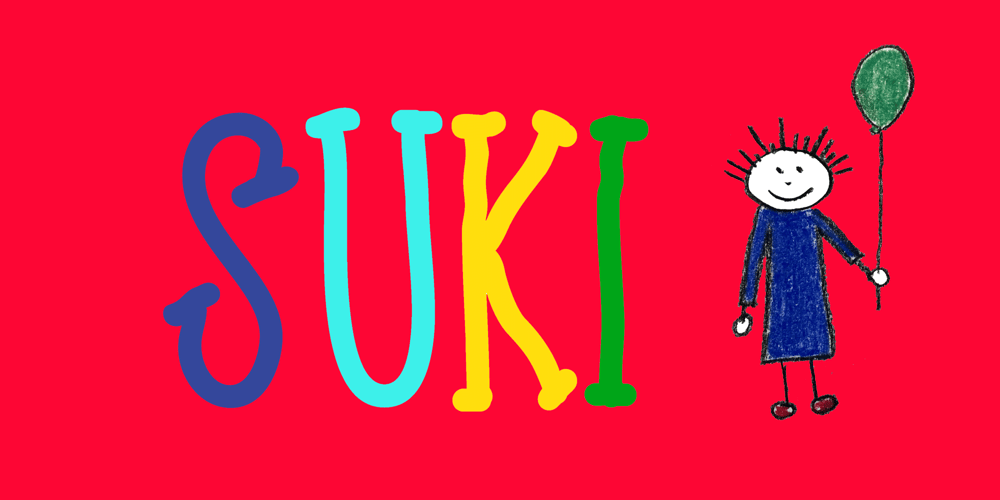
Suki Font Family was designed by Joachim Frank and published by Joachim Frank. Suki contains 1 styles and family package options. Sookie is a hand designed font for posters, invitations, headlines, lettering of nursery hooks, signs, young, fresh and round.Designed in March 2022 by Joachim Frank, Germany.